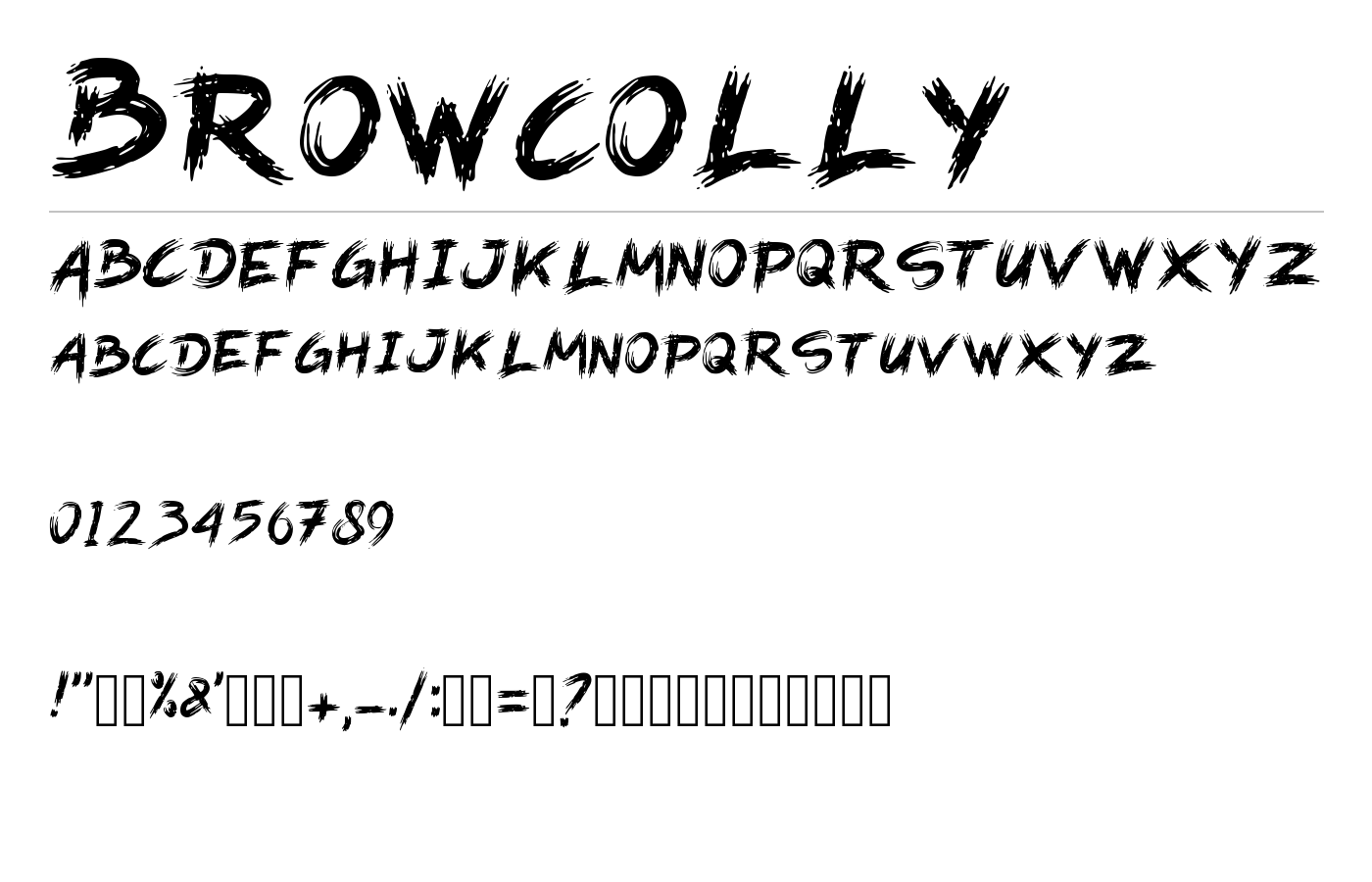
Browcolly is a bold, brush-style sans serif font that captures an energetic, hand-painted look with its rough, textured strokes and dynamic letterforms. Its uneven edges and casual feel make it perfect for creative, informal designs like posters, logos, or branding that want to convey a raw, artistic vibe. This font works well for headlines and display uses where its strong personality can stand out.
Browcolly Font
About Browcolly Font